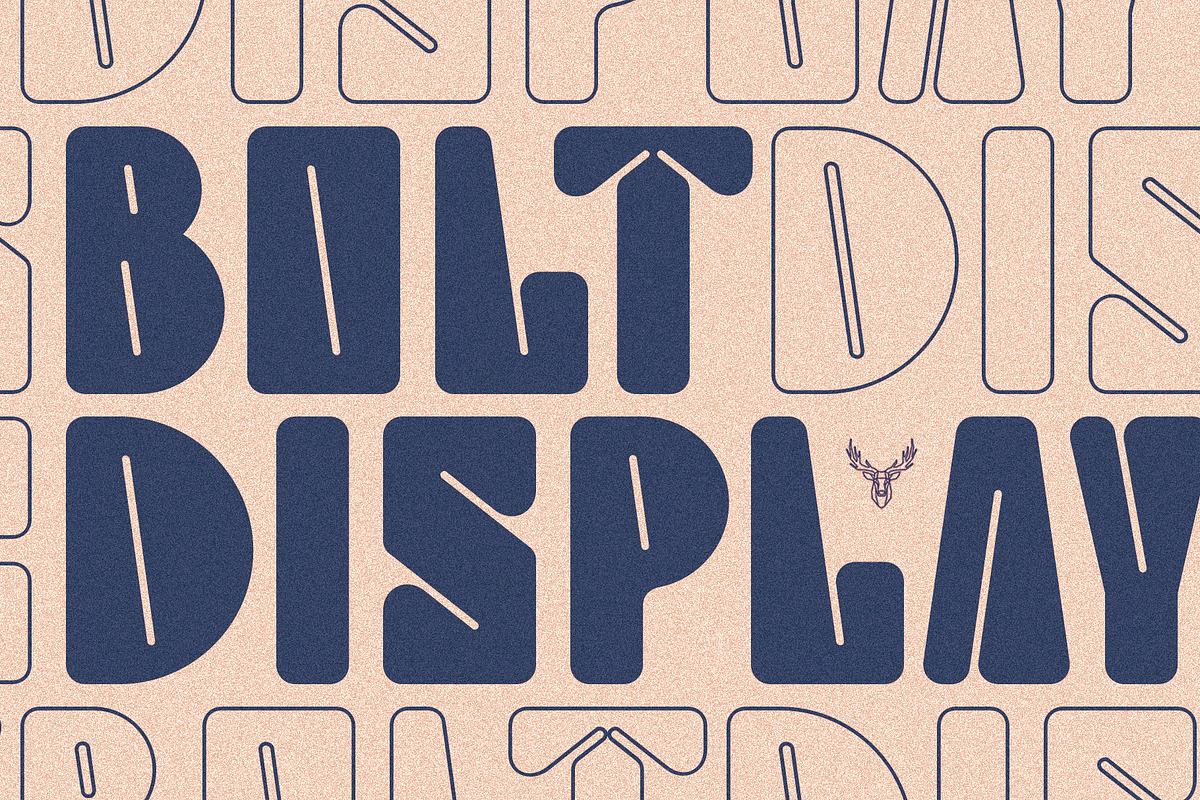
Bolt Display - Rounded Bold Sans Font Free Download is a fun, friendly, and ultra-bold typeface designed to make a statement while keeping things soft and approachable. With its chunky letterforms and smooth, rounded edges, Bolt Display is perfect for headlines, branding, packaging, children's content, tech graphics, and modern digital layouts.
The font’s clean and confident look makes it highly readable, while its rounded curves bring a sense of warmth and playfulness. Whether you’re designing for lifestyle products, apps, or bold logo marks, Bolt Display adds clarity with a punch of personality.